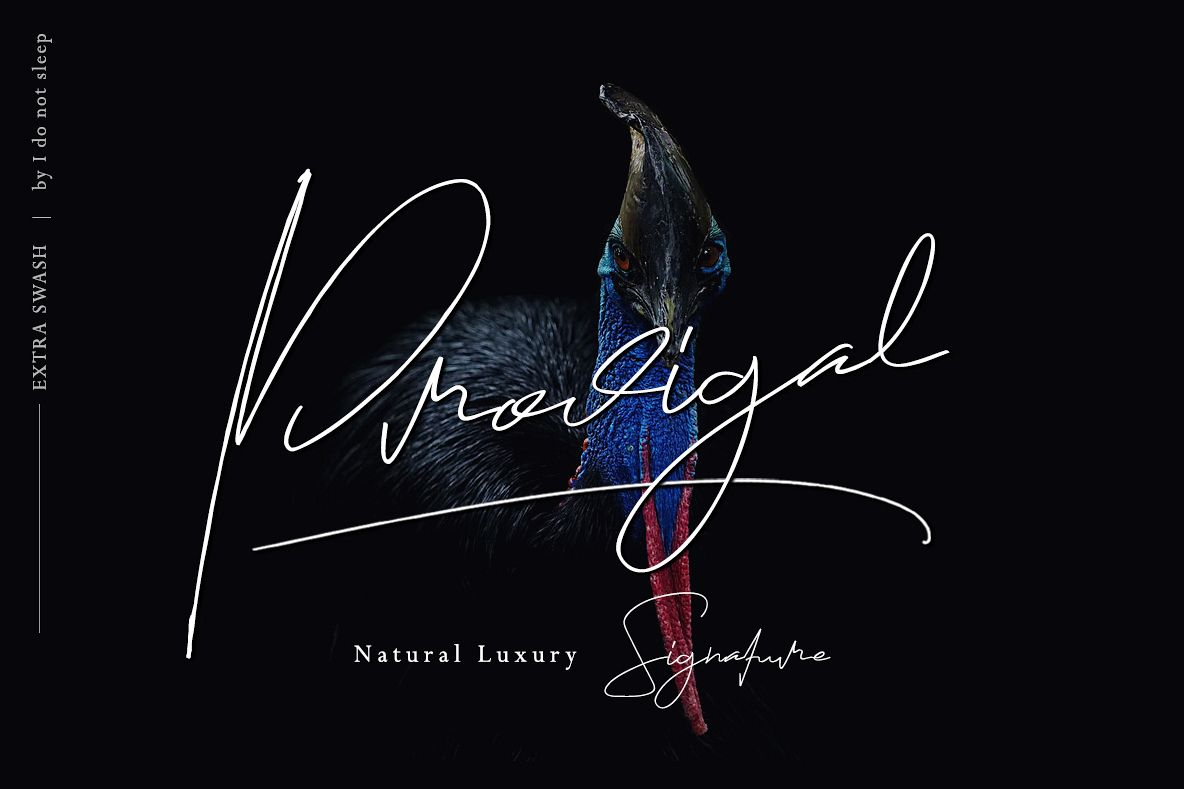
Prodigal Natural signature & Extra swash
prodigal is a signature font with a natural touch of a handwritten, equipped with swash, ligatures, alternate fonts to make fonts look prettier, Prodigal has a very good function, you can use it for signatures, watermarks, magazine fonts, quotes, your website fonts, titles.